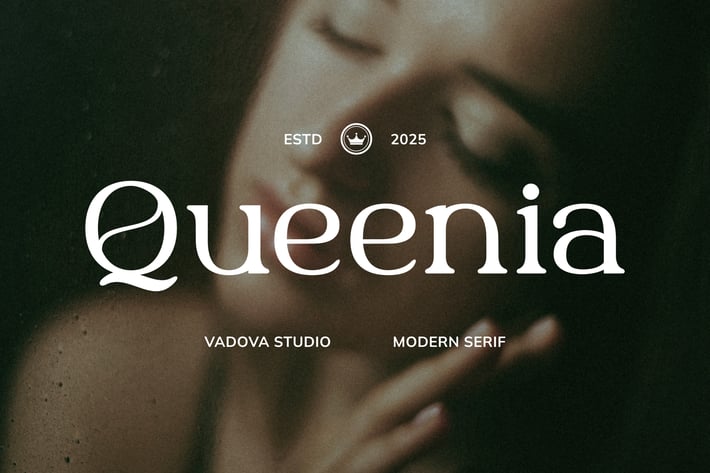
Queenia Modern Serif Font
Queenia is a modern serif typeface that exudes an elegant and sophisticated feminine vibe. Its letterform structure showcases graceful curves and refined serifs, creating a luxurious and stylish aesthetic. This font is particularly well-suited for branding in the beauty and cosmetic industries, high-end fashion magazines seeking a touch of modern elegance, and lifestyle blogs aiming for a sophisticated visual identity. Its graceful nature also makes it ideal for wedding invitations, luxurious packaging designs.
Main Features
Uppercase & Lowercase characters
Numeral & Punctuations
Multilinguals Support
Queenia Suitable for Beauty product branding, high-end fashion editorials, elegant wedding stationery, luxury cosmetic packaging, sophisticated lifestyle blogs, upscale jewelry branding, refined skincare product design, graceful magazine layouts, boutique branding, feminine website design, high-quality product descriptions, elegant social media campaigns, perfume and fragrance branding, sophisticated e-commerce sites, luxury hotel branding, refined art and design projects, exclusive event invitations, high-end spa branding, elegant book covers, and sophisticated corporate communications.